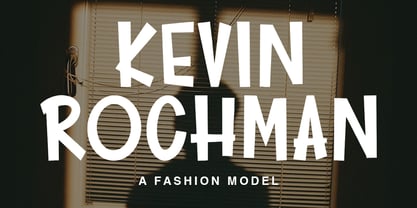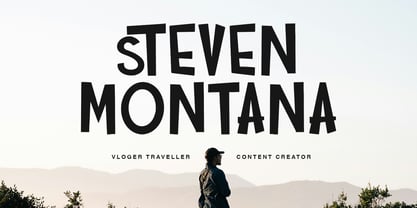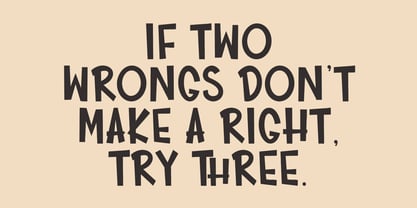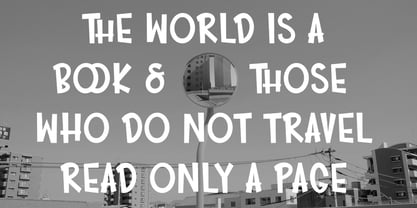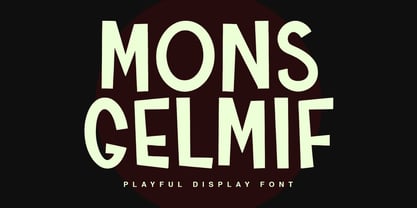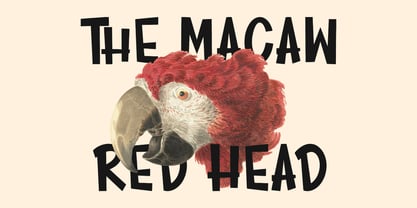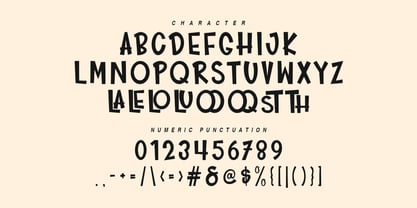
MC Monsgelmif
by Maulana Creative
The MC Monsgelmif Font Family was designed by Gilang Maulana and published by Maulana Creative. MC Monsgelmif contains 1 styles. More about this family
Monsgelmif is a playful style display font. Fun character with a bit of ligatures. To give you an extra creative work. Monsgelmif font support multilingual more than 100+ language. This font is good for logo design, Social media, Movie Titles, Books Titles, a short text even a long text letter and good for your secondary text font with sans or serif. Make a stunning work with Monsgelmif font.
Designers: Gilang Maulana
Foundry: Maulana Creative